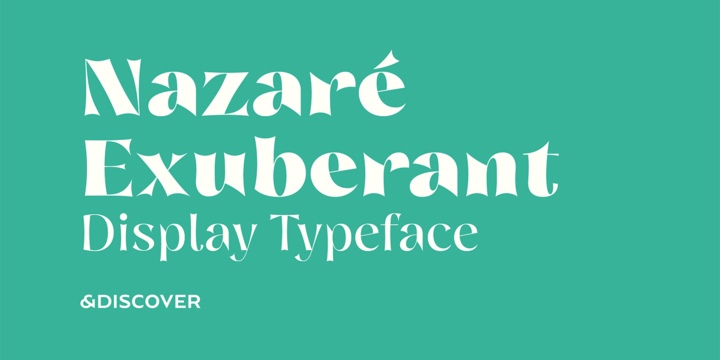
Nazare Exuberant Font
Nazare Exuberant Font is perfect for vibrant festival branding, tropical resort marketing, Brazilian restaurant signage, colorful carnival promotions, Latin dance studio logos, exotic vacation packaging, beachside cafe menus, and energetic cultural celebration materials. This dynamic typeface excels in applications where passionate energy and tropical exuberance are essential for creating joyful and memorable brand experiences.
What makes Nazare Exuberant Font truly exciting is its infectious celebration of life and vibrant cultural expression that captures the essence of Latin American festivities. The font features bold, flowing letterforms with rhythmic curves and energetic flourishes that dance across the page with unbridled enthusiasm. Its passionate character and expressive details create an immediate sense of warmth and celebration that transports viewers to sun-soaked beaches and lively street festivals. The typeface's exuberant personality makes it perfect for brands wanting to convey joy, passion, and connection to vibrant cultural traditions.
The Nazare Exuberant Font family includes regular and decorative versions, along with ornamental elements inspired by tropical and Latin design motifs. The font offers comprehensive character sets with accent marks for Portuguese and Spanish languages, plus decorative swashes that enhance its festive appeal. Additional graphic elements including flourishes, ornamental borders, and cultural symbols provide designers with complete branding tools rooted in Latin American aesthetic traditions.
For designers seeking a passionate and energetic typeface, Nazare Exuberant Font Free Download represents a perfect choice that infuses projects with tropical warmth and cultural vibrancy. Whether you're creating brand identities for entertainment venues, designing packaging for exotic food products, or developing marketing materials for travel and hospitality brands, this font delivers the infectious enthusiasm that resonates with audiences seeking authentic cultural experiences. Its exuberant character and tropical appeal make it particularly effective for brands in tourism, food service, and entertainment industries. The font's ability to evoke feelings of celebration, warmth, and cultural richness makes it an invaluable asset for creating brand communications that celebrate diversity, passion, and the joyful spirit of Latin American culture.